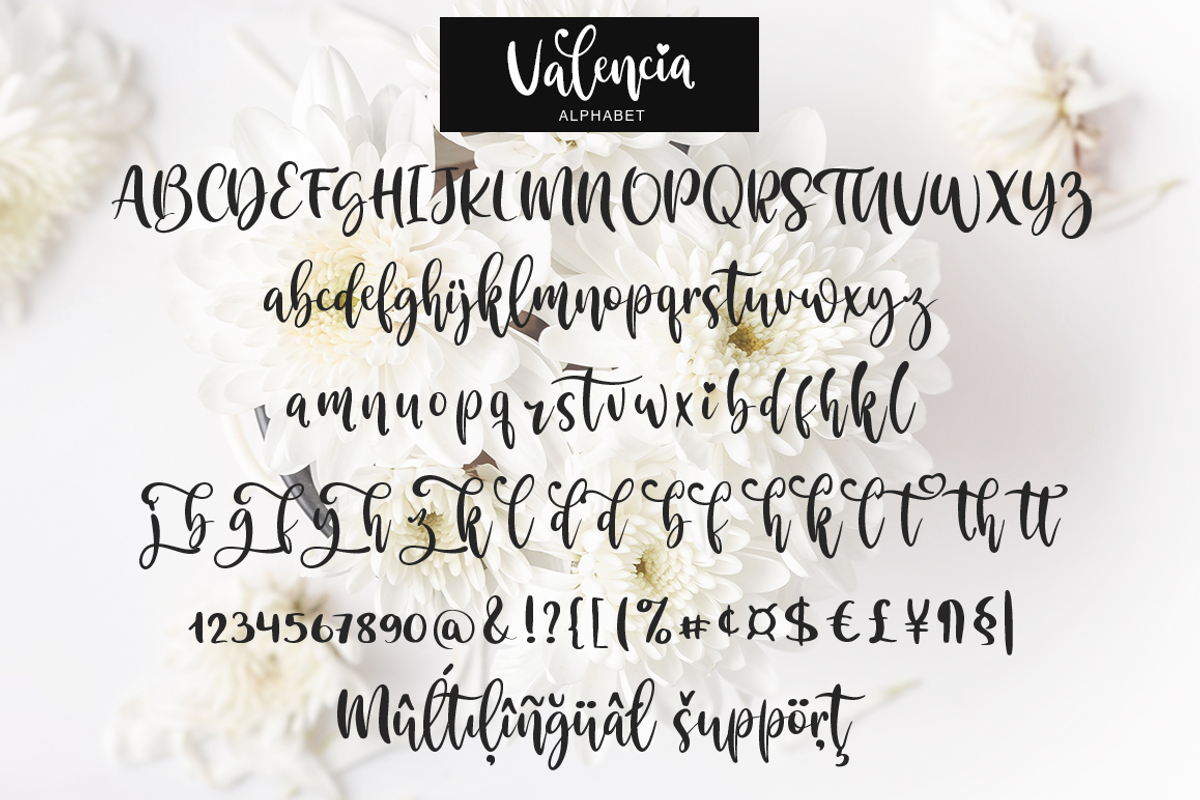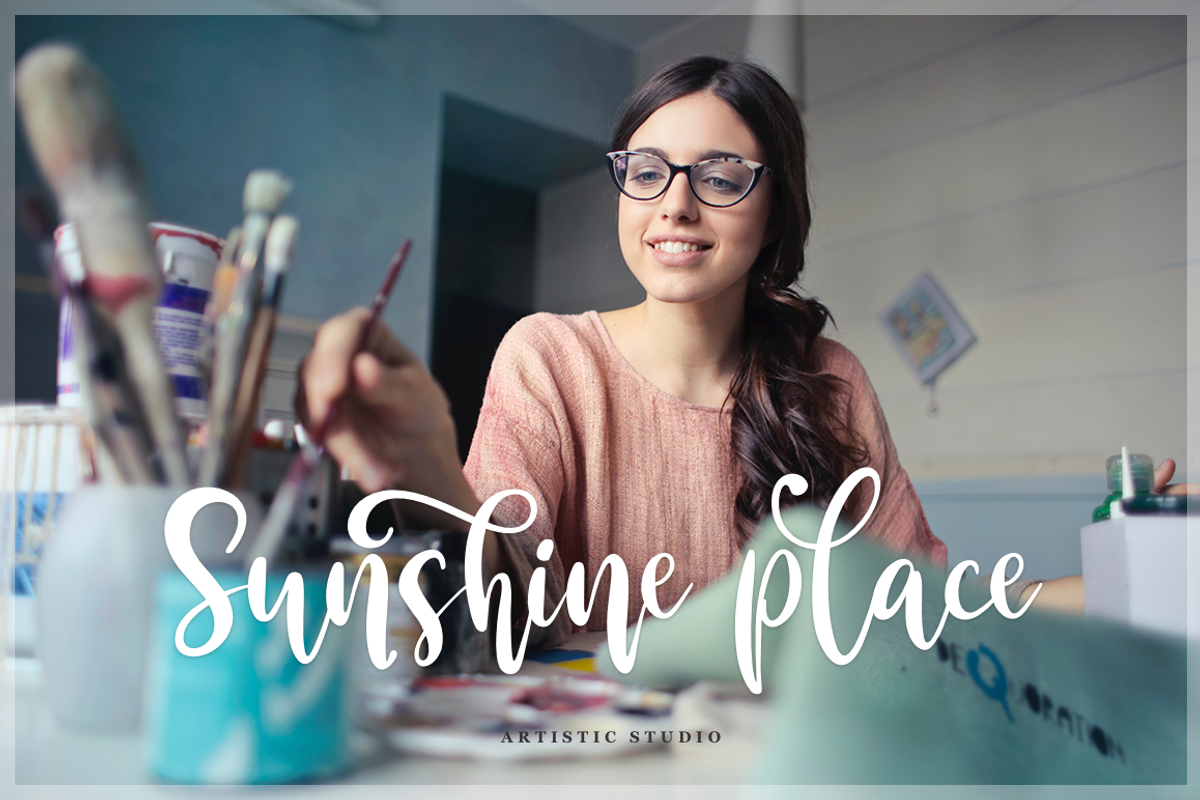
Valencia
Valencia - this is a beautiful handwritten font filled with charm and romance. It will fit perfectly into any project, and thanks to alternative substitutes, you can make your design unique, try playing substitutes, and you will get different options for your design. All characters in this font support PUA encoding.
Following international symbols support: ÀÁÂÃÄÅĄÇĆÈÉÊËĘÌÍÎÏÐÑŃŁÒÓÔÕÖØÙÚÛÜŚŠŸÝŹŻŽßàáâãäåçèéêëìíîïðñòóôõöøùúûüýÿąćęłńśšźżž